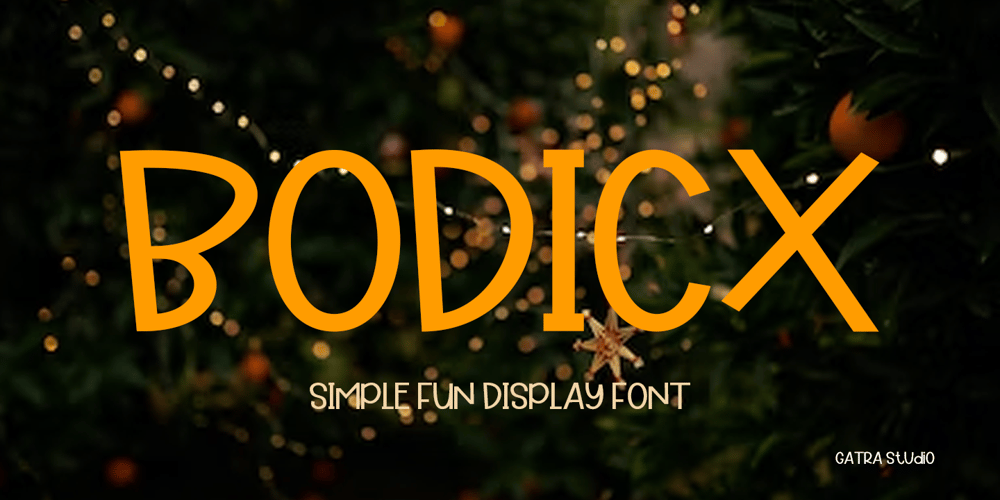
Bodicx Font Family was designed by Wahyu Edhi Widodo and published by Gatra Std. Bodicx contains 1 styles and family package options. Introducing a cute handwriting “Bodicx” Simple Fun Display Font!If you are needing a touch of casual modern San-Serif for your designs, this font was created for you! What’s Included: Uppercase and Lowercase Number and Punctuation Support Language This font works best in a program that supports OpenType features such as Adobe Indesign, Adobe Illustrator CC and CS, or Adobe Photoshop CC and CS also CorelDraw More Questions? Here are some (potential) answers! Do not to resell this font in any way. Multilingual Support is included for Western European Languages If You interest this font for commercial use please contact me at : wahyuputrabangsa127@gmail.com Have a Wonderful Day,Gatra Std